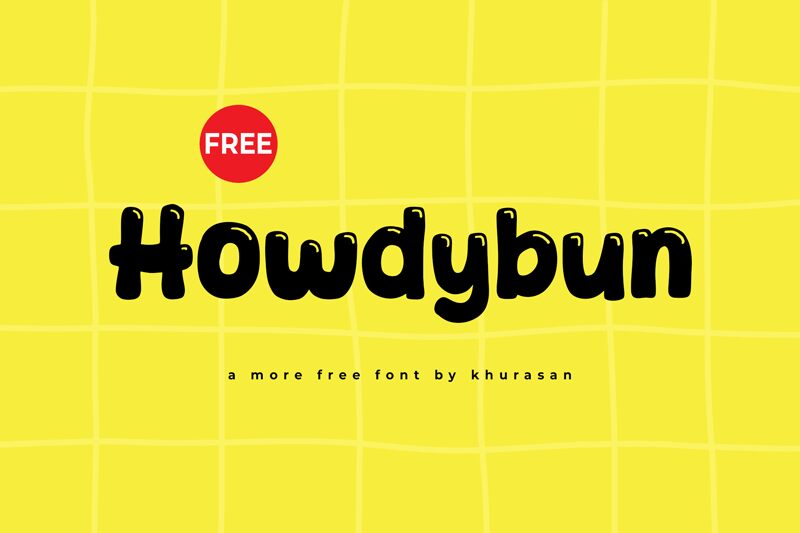
Howdybun font family by Khurasan is a free cartoon and humorous font duo characterized by informal, friendly, and youthful aesthetics. The casual font has a contemporary design that makes it eye-catching and perfect for all modern design projects. The flowing pen strokes are another charming feature distinguishing this typeface alongside its warm imagination-inviting letterforms.
Here are some ideas for how you can put this resource to use: food packaging, children’s book covers, posters, gifts, branding and logos, scrapbooking, doodles, picture books, book covers, and more.